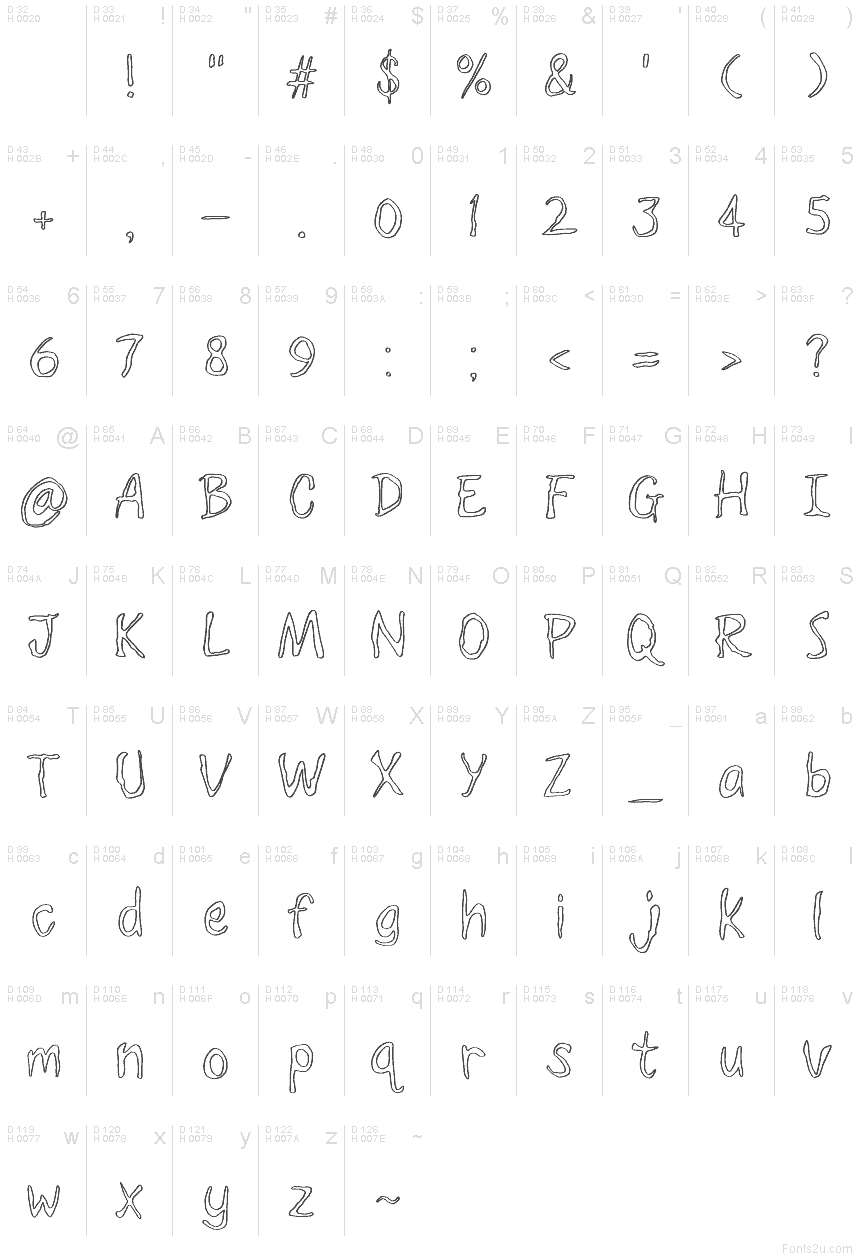
MILKSOCKS Regular
Milksocks font by T.ink is a free outlined cartoon display font. Built around a wobbly, hand-drawn contour, its letters look a little puffy and buoyant, with inky lines that thicken and thin as they wander. The hollow forms create airy counters that feel light and playful, giving headlines a squishy, doodled charm without turning messy.
Using Milksocks, your titles instantly read as friendly and homemade—great for kids’ packaging, ice-cream shop logos, playful posters, classroom materials, stickers, social posts, and event flyers. The irregular rhythm adds personality while staying legible at larger sizes. Simple pairing tip: set Milksocks large for headlines and balance it with a clean geometric sans for body copy; try color-filling the outlines for extra pop.